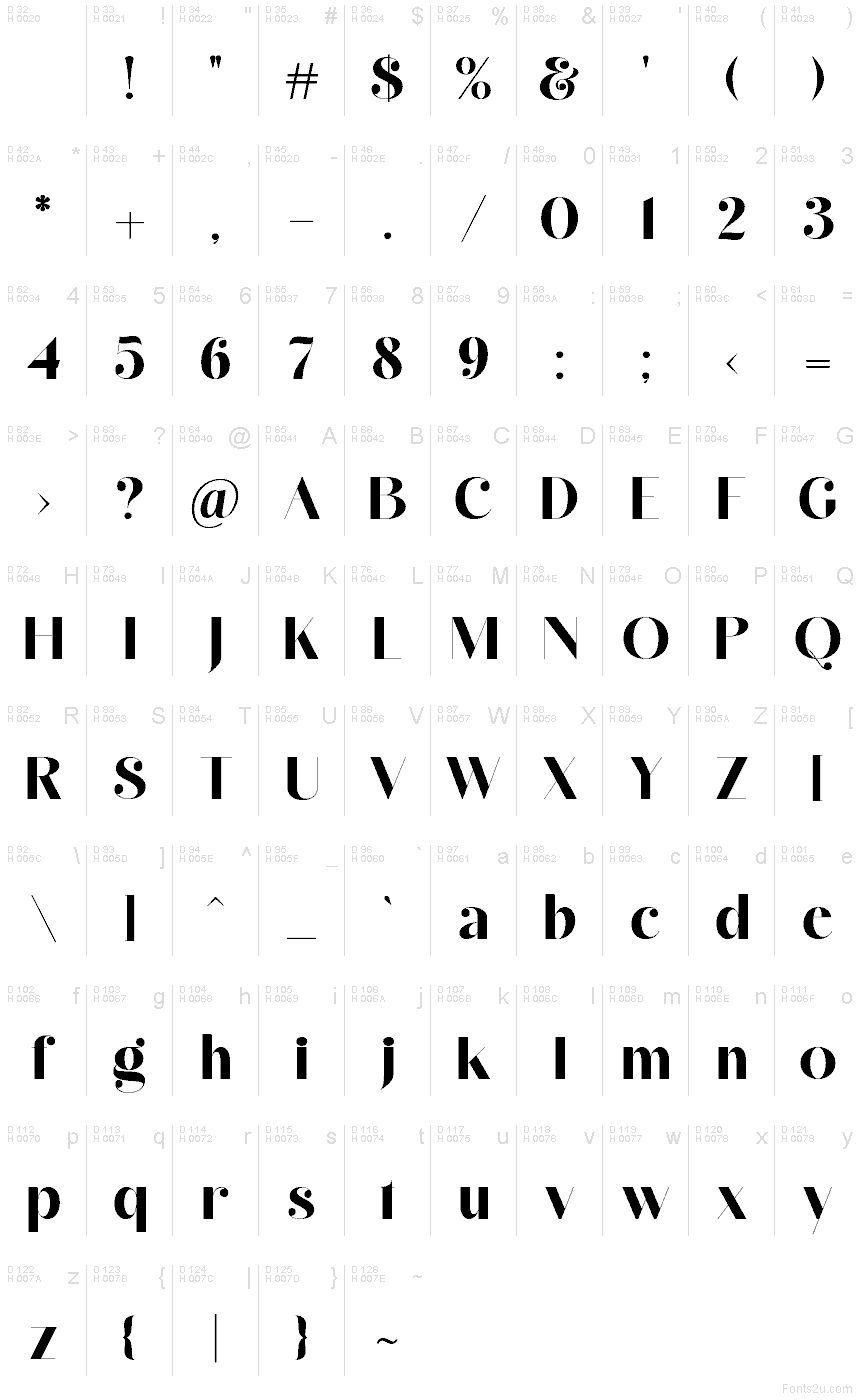
Mirage-Regular
Mirage font is a bold, sleek, and sophisticated serif from VampStudio that couples a modern feel with an artistic flair. High contrast in this elegant typeface ensures that every word which you put down is refined and stylish whether in large or small formats.
This unique font is especially useful for headlines and titles over advertising material, posters, magazines, packaging, websites, social media banners, publications like books and journals. Other implementations include product designs and branding projects like business cards, user interfaces in both physical products or digital displays such as mobile apps.